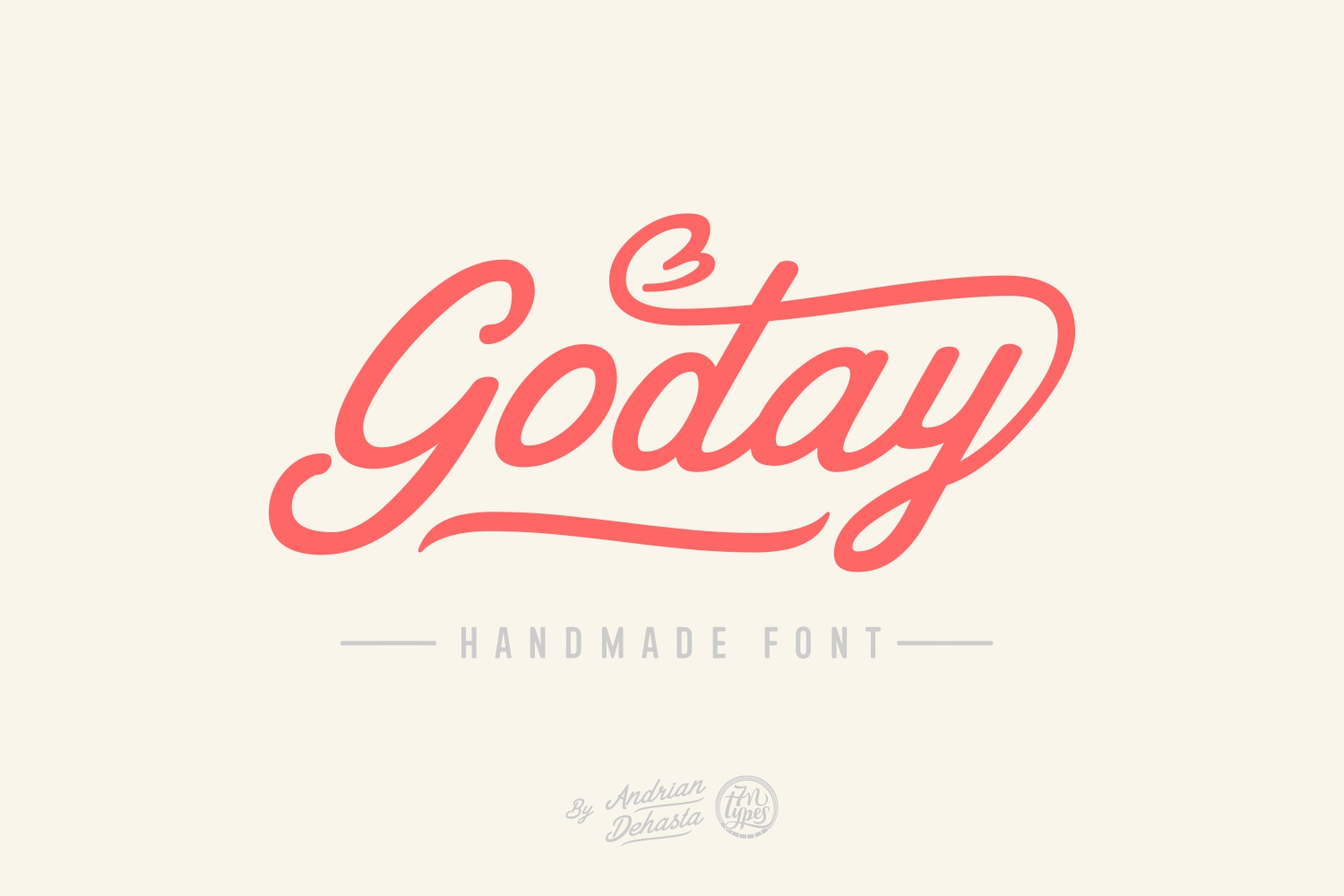
Goday Font
About Goday Font
Goday is a beautiful and current script font, perfect for headlines and displays. This thick and well-weighted script font is ideal for use in modern designs but can give your vintage inspired designs a clean and sleek feel.